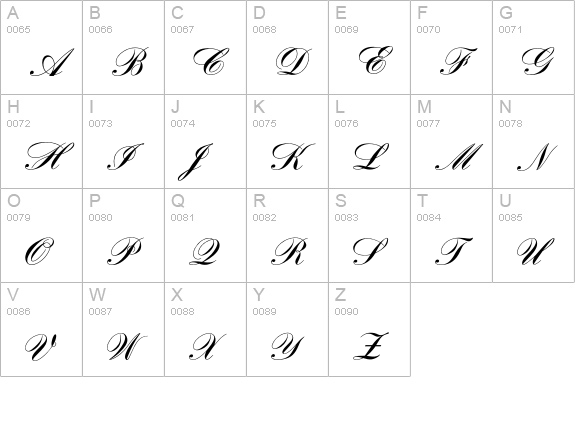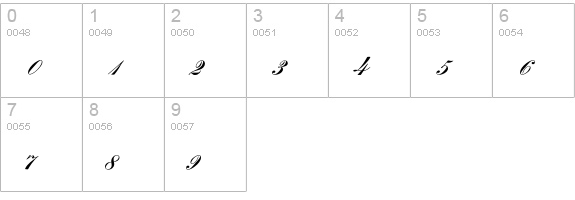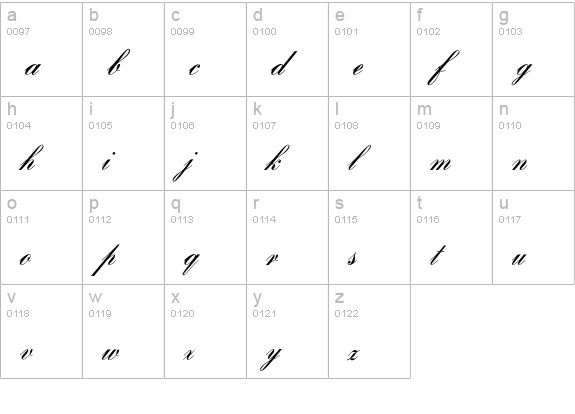
Romance Font Details
Romance font is a beautifully crafted typeface that exudes elegance and charm. Its delicate curves and flowing lines give it a romantic and sophisticated touch, perfect for adding a touch of whimsy to any design project. This font is freely available to download at FontsMarket.com, making it easily accessible to anyone looking to add a touch of romance to their creations. Whether you're designing wedding invitations, love letters, or any other romantic project, Romance font is sure to add a touch of magic and allure. Let your creativity soar with this enchanting typeface.